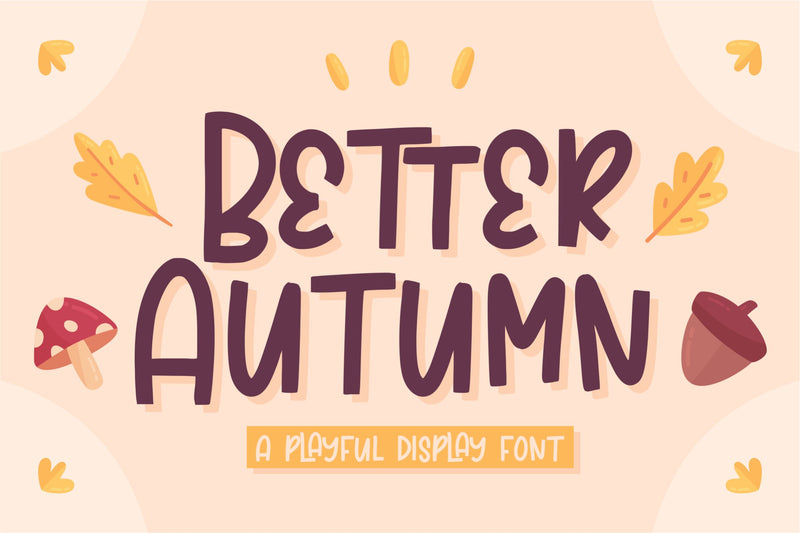
Better Autumn
Proudly Present, Better Autumn
Better Autumn is a Playful Display Font
Better Autumn is perfect for product packaging, branding project, megazine, social media, wedding, or just used to express words above the background.